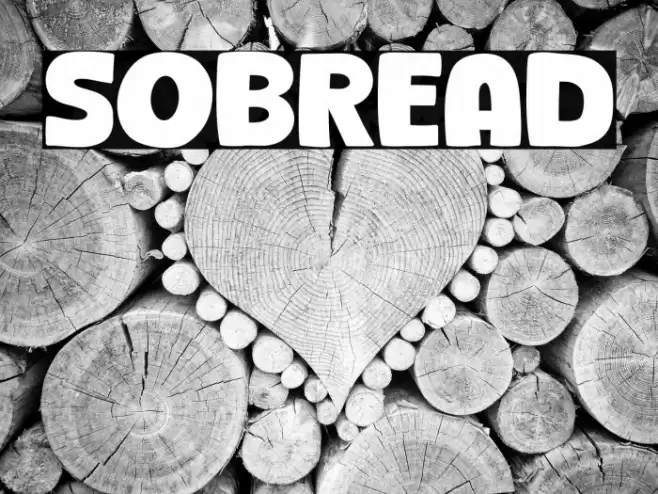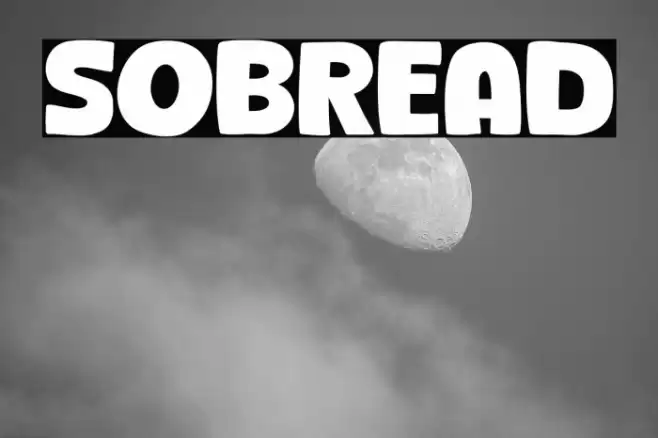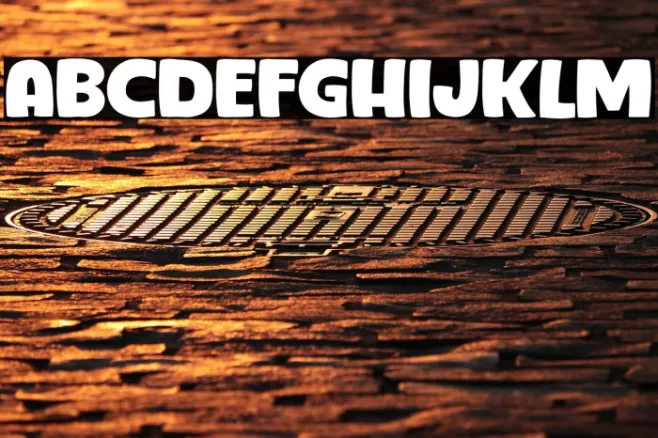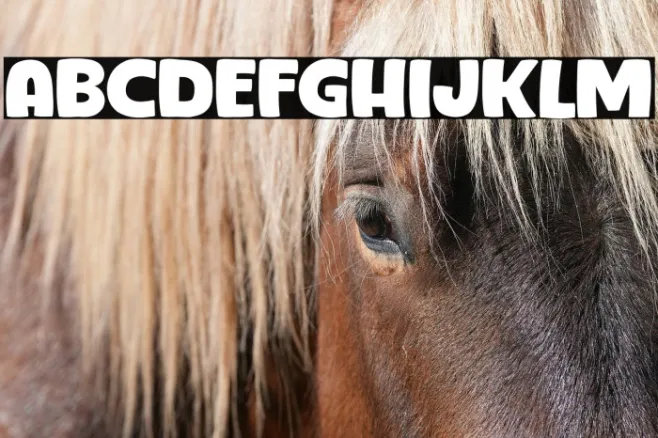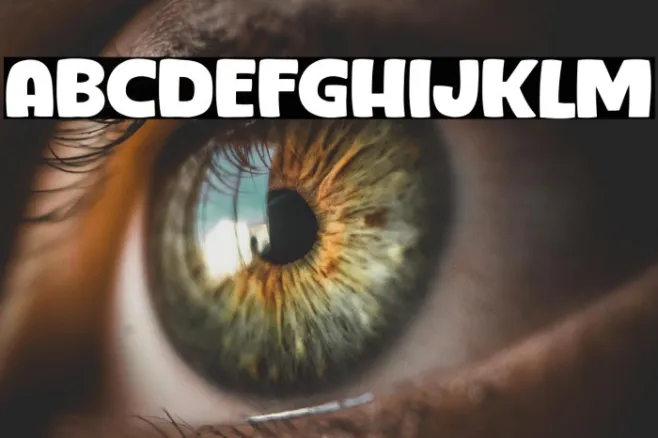
Sobread Font
Sobread Description
This font features bold, rounded characters with a playful and friendly appearance. The letters are thick and have a uniform stroke width, giving them a strong presence on the page. The rounded edges and slightly irregular shapes add a whimsical touch, making it suitable for informal and creative projects. The numbers and special characters maintain the same playful style, ensuring consistency across all text elements. This font is ideal for designs that require a bold statement with a touch of fun.
A bold, rounded font with a playful and friendly style from Uncategorized fonts.
- Font: Sobread
- Proposed Projects: Ideal for children's books, playful branding, posters, and social media graphics.
- Overall Style: Playful, Friendly